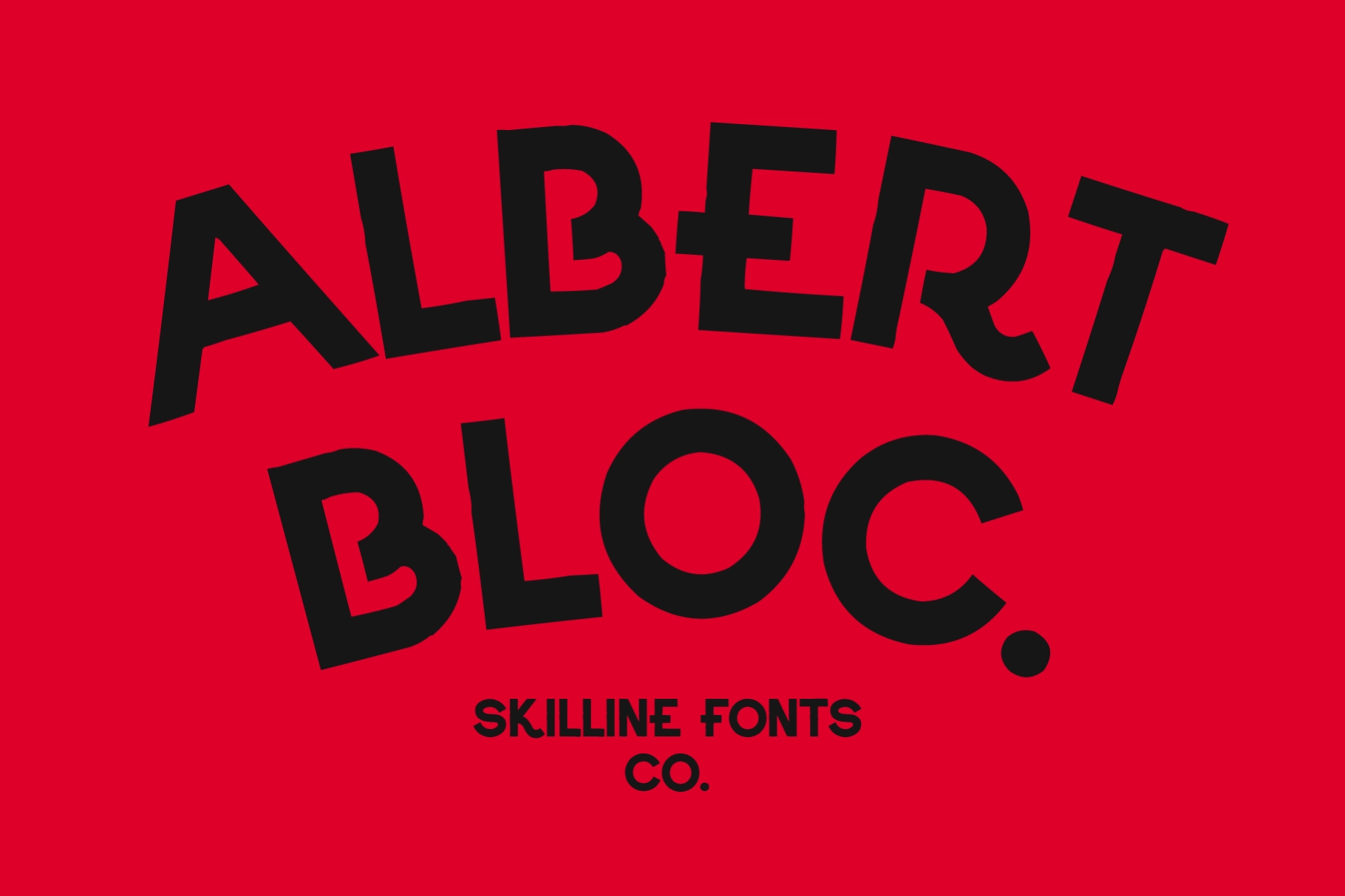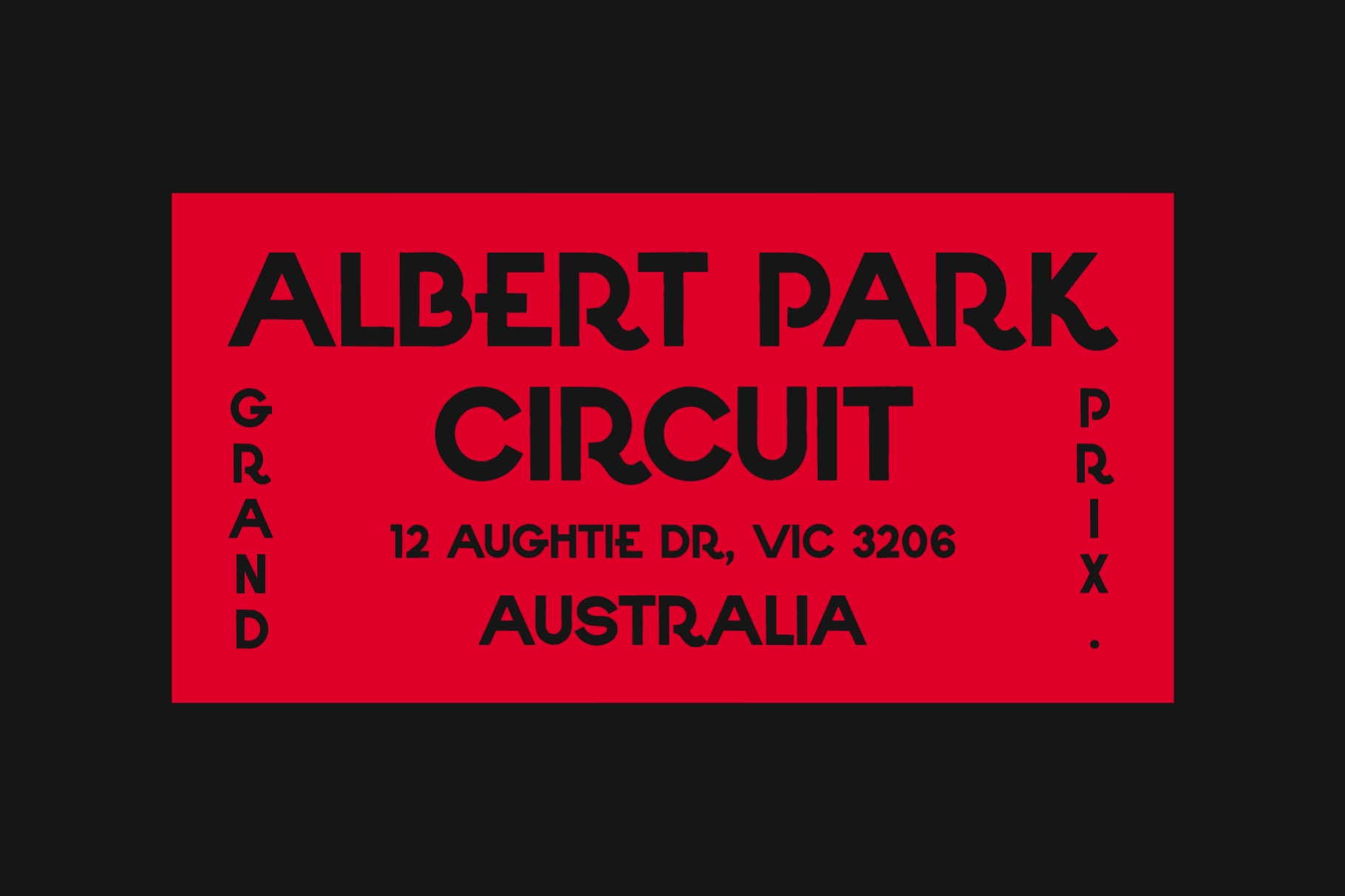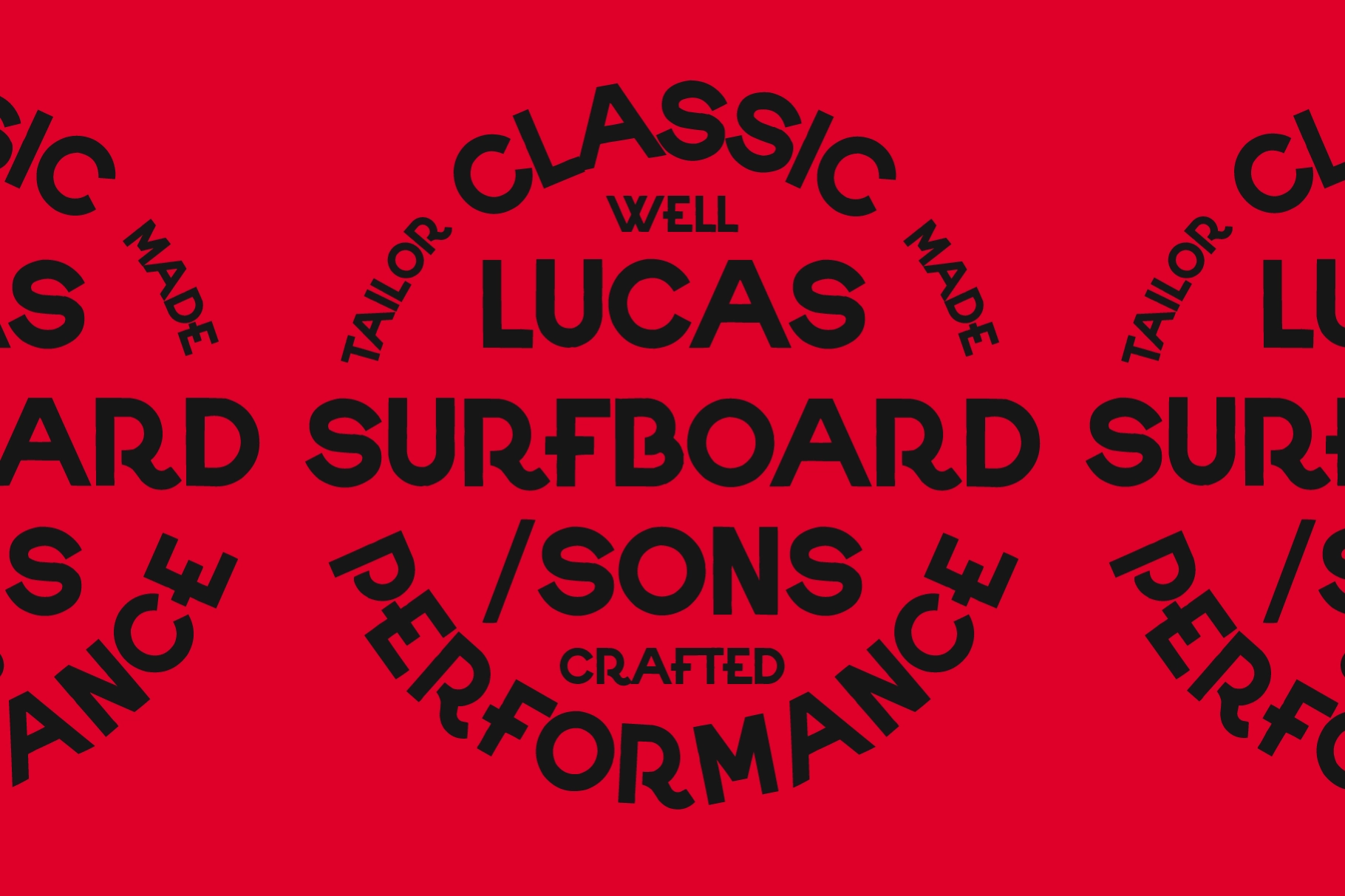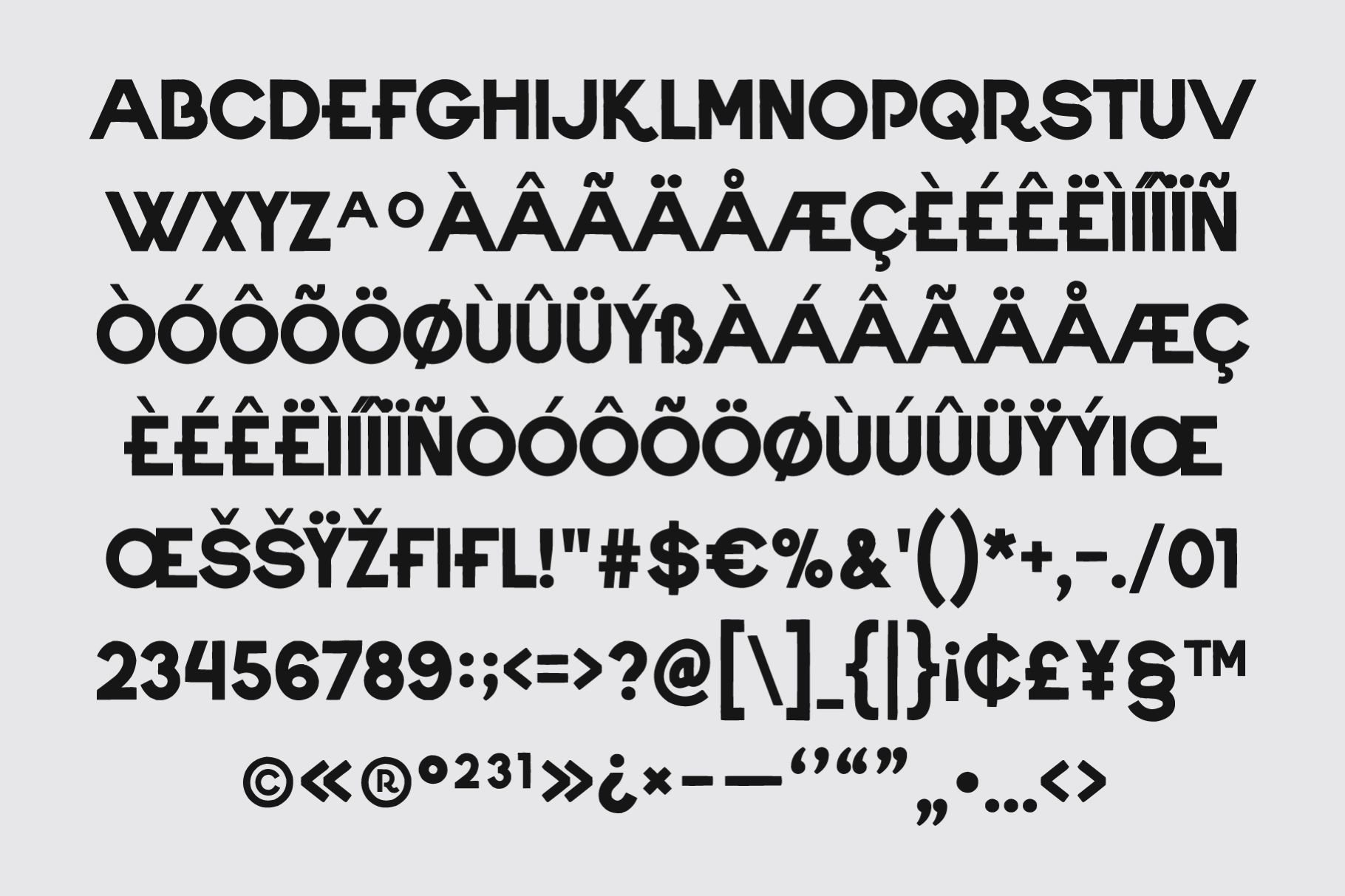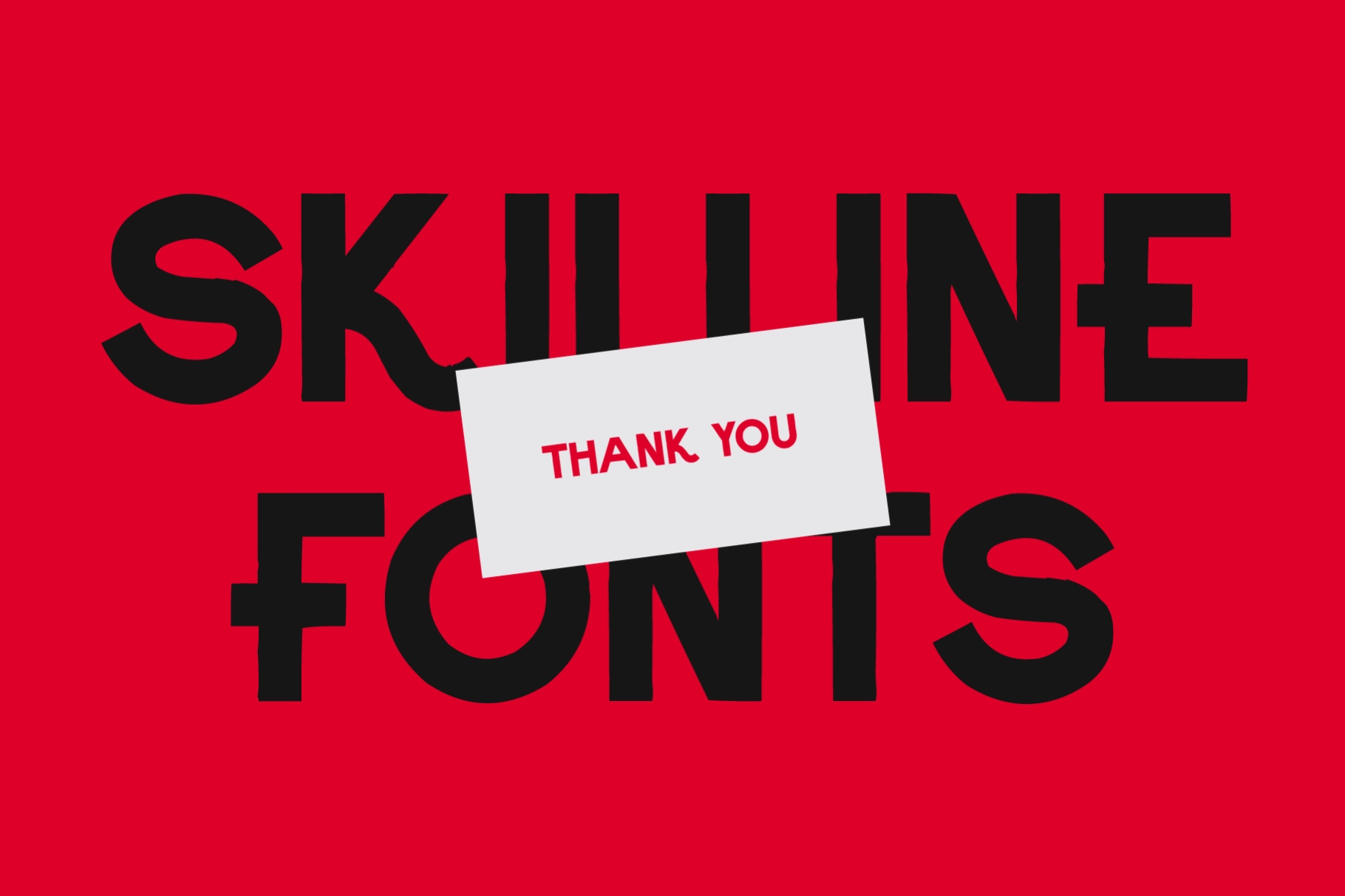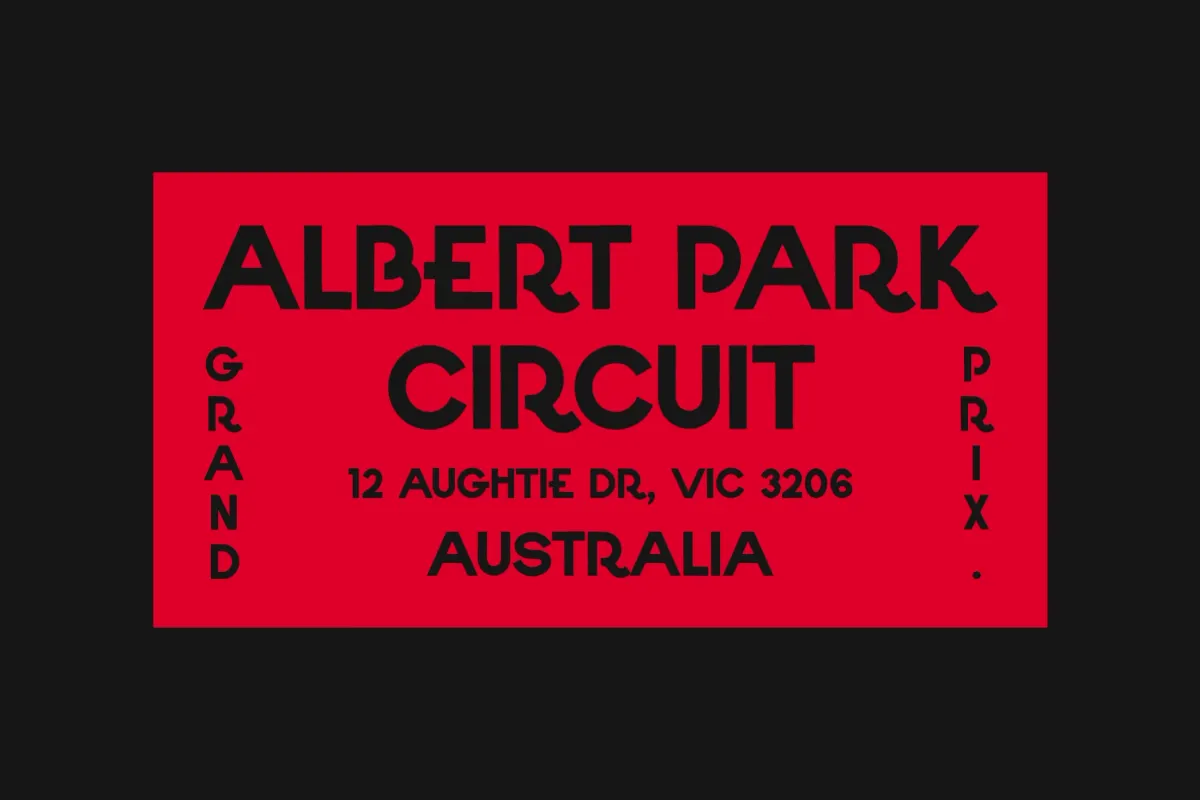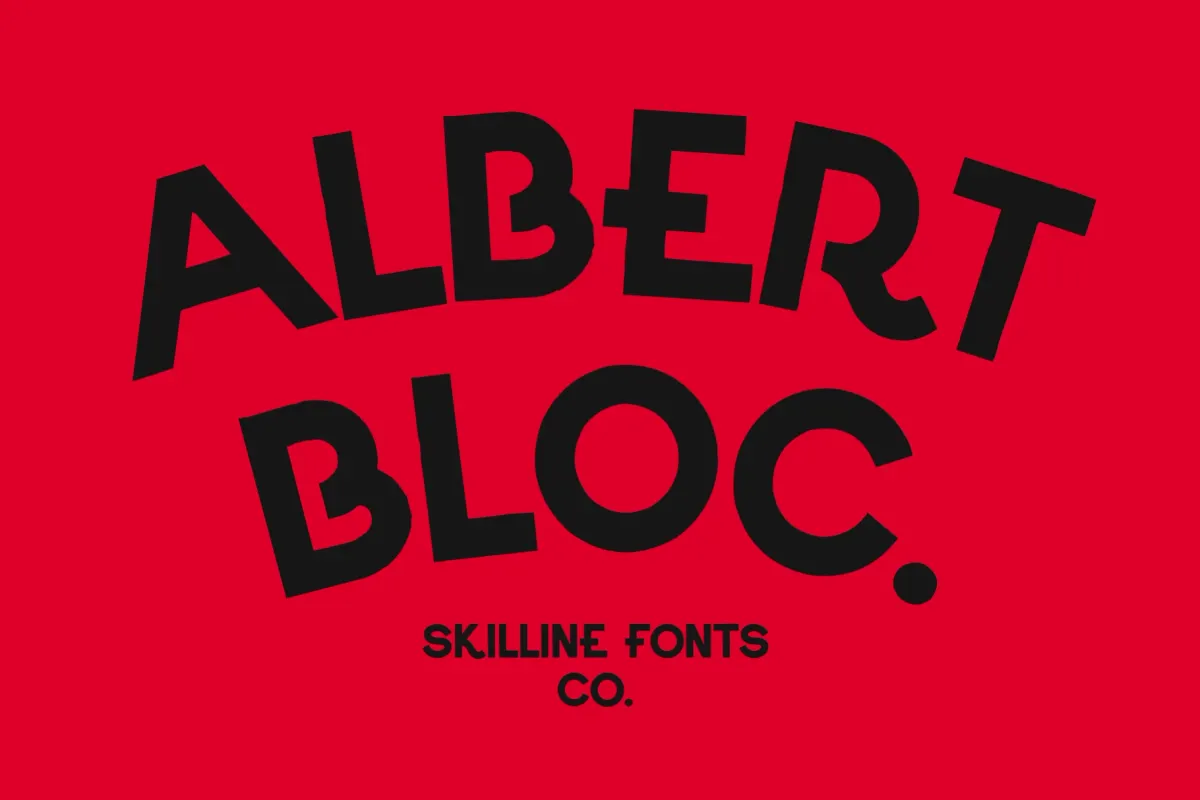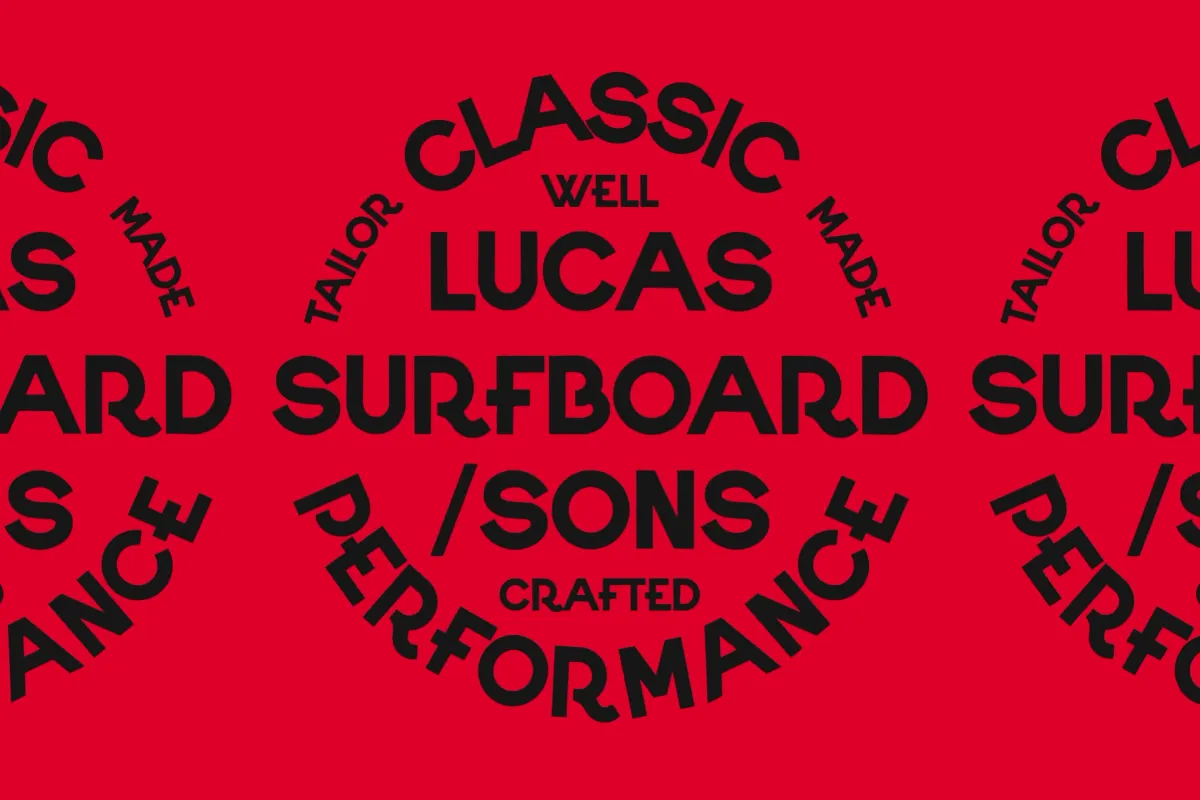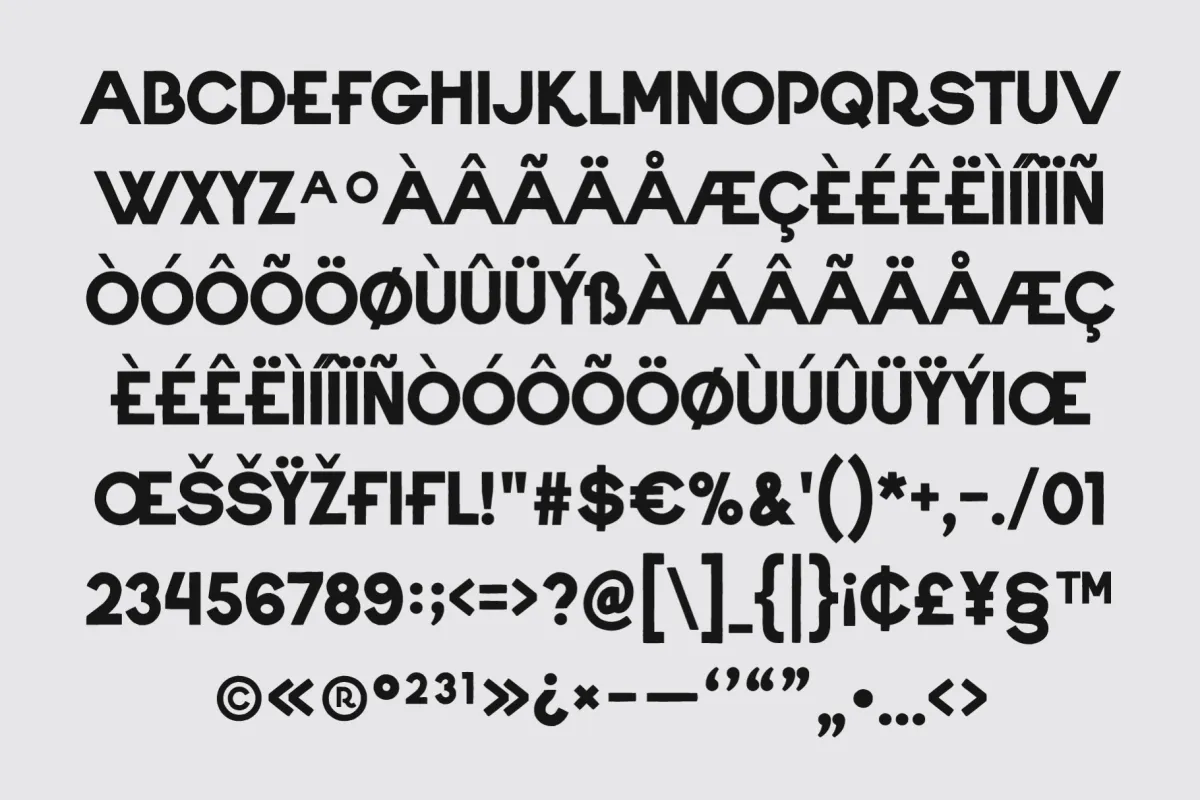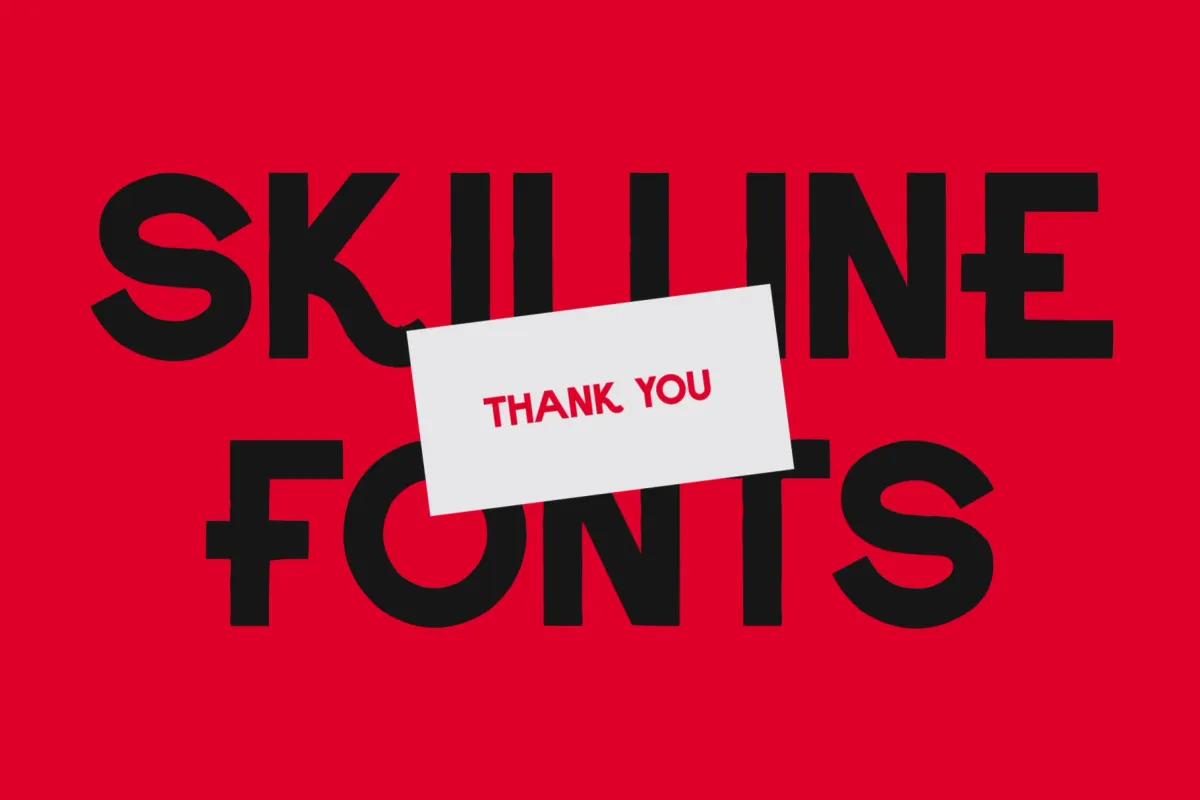
Albert Bloc - Bold All Caps Display Font
SFC Albert Bloc
Albert Bloc is a bold all-caps display font that pulls its geometric bones from vintage grand-prix tickets and surf-shop badge lettering, with thick, blocky strokes and a slightly uneven edge that keeps the geometry from reading like it was stamped out by a machine. Round bowls on B, O, and C sit next to a flat-topped G and an oversized period, and the same shapes carry over when lowercase keys are pressed.
The weight holds up at badge and emblem scale, so Albert Bloc slots into motorsport and surf branding, event tickets, sports team marks, and retro packaging labels. Use it for logo lockups, badge and emblem design, poster headlines, apparel graphics, and vintage-style signage.
- Uppercase only;
- Numerals, punctuation & symbols;
- Ligatures, superior ordinals & currency symbols;
- 229 glyphs total